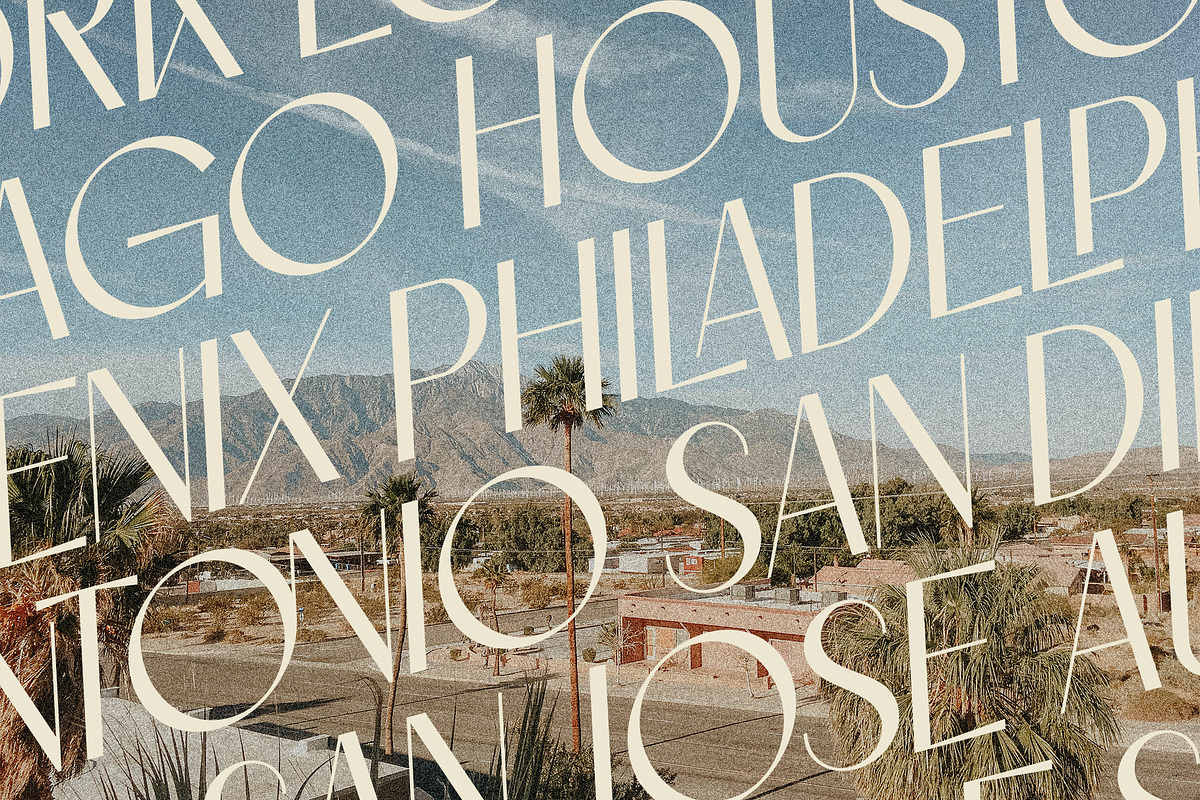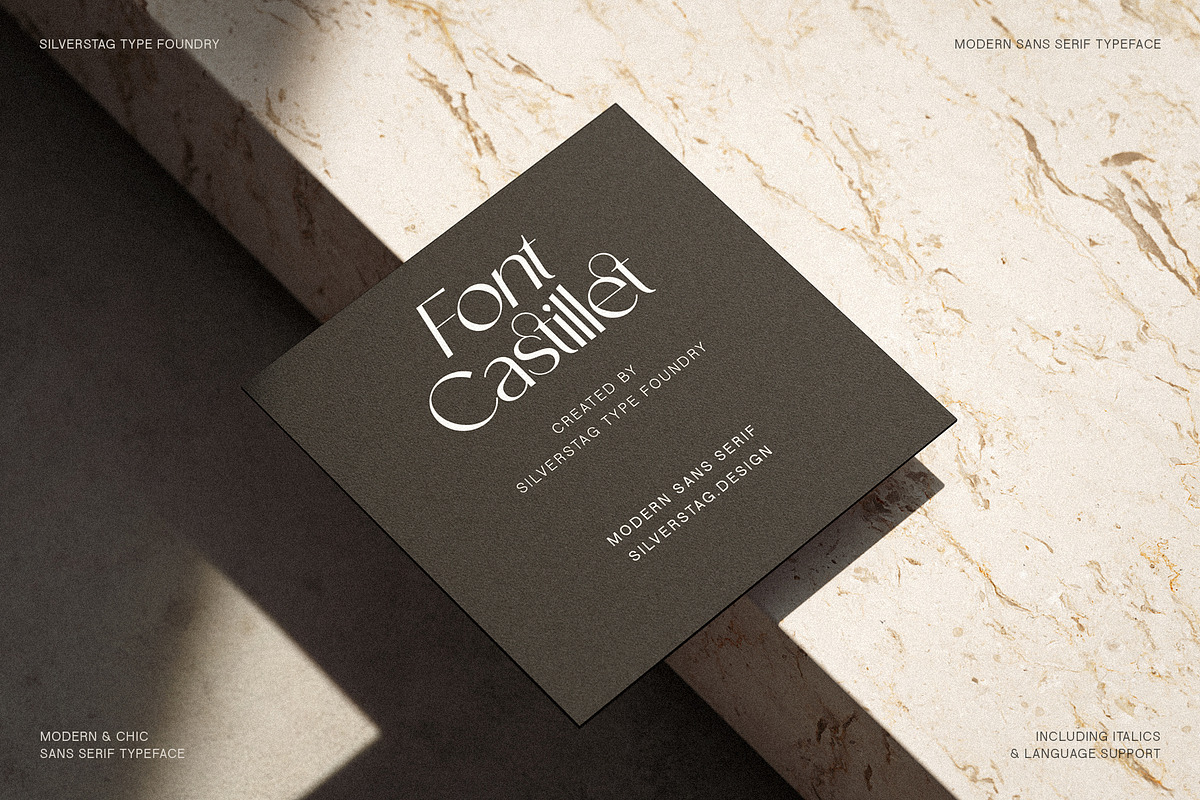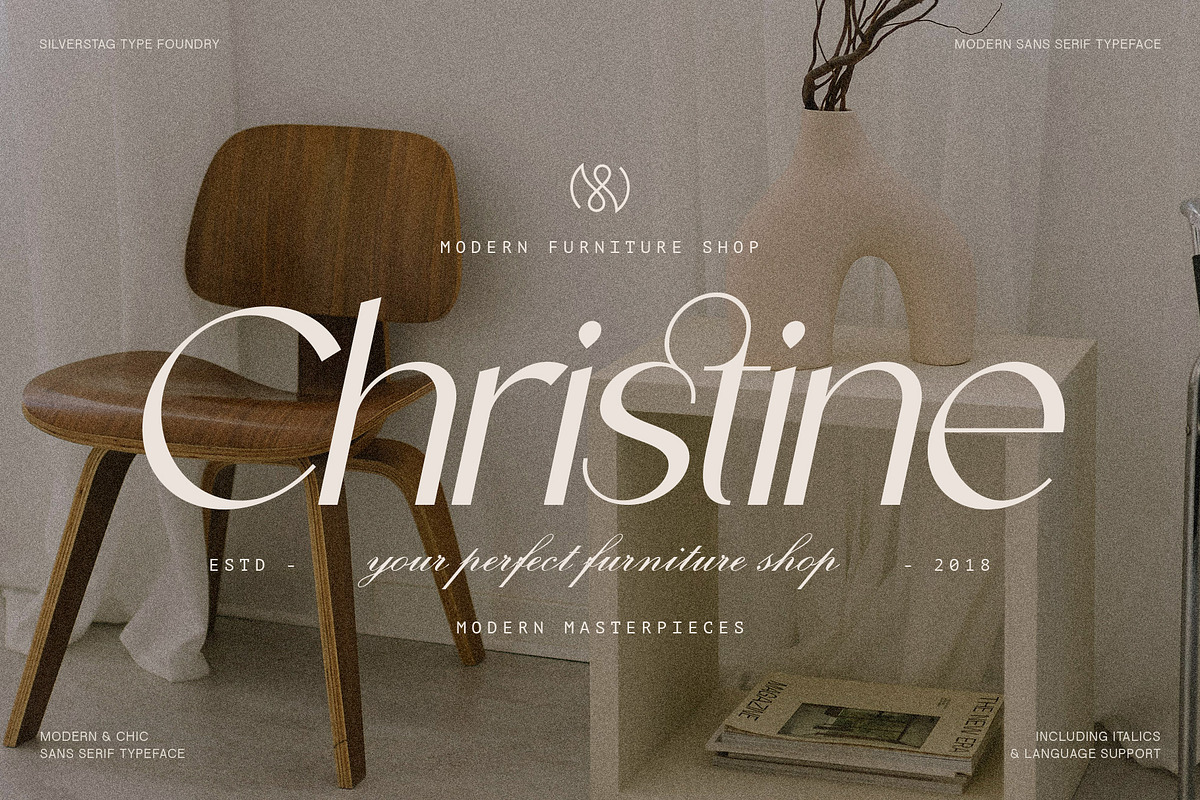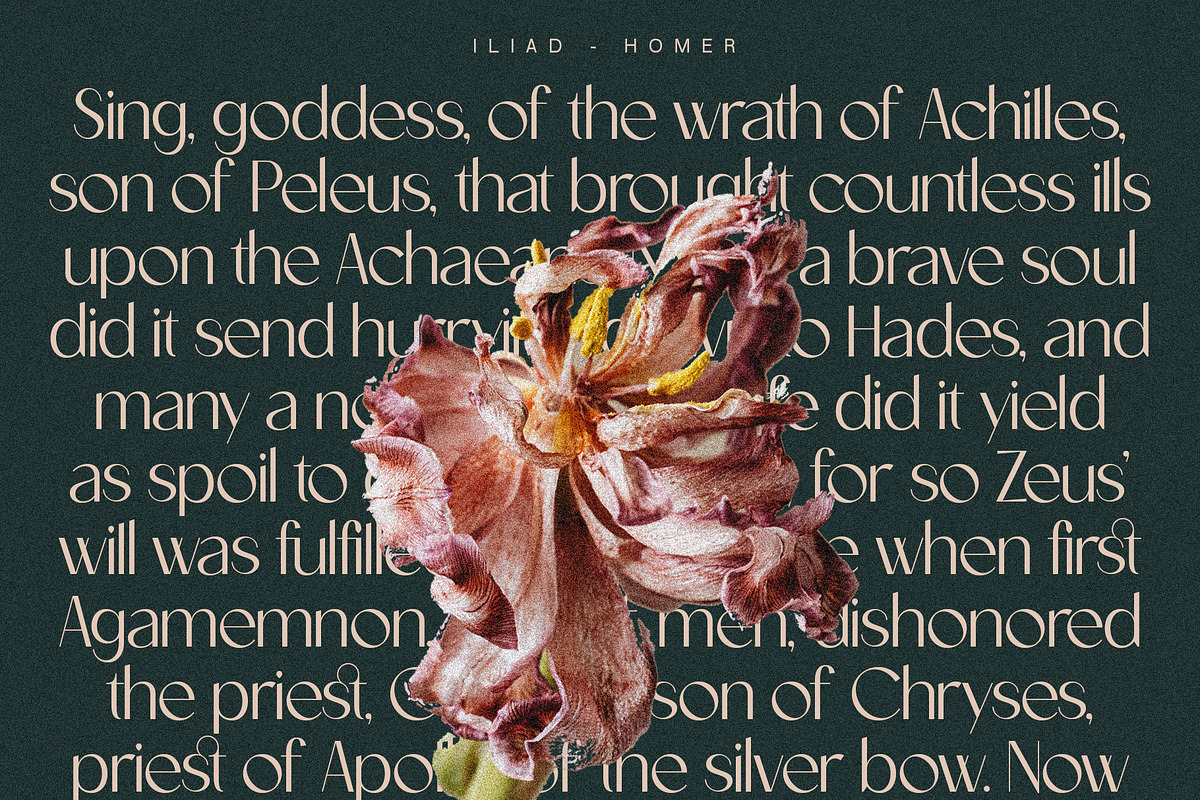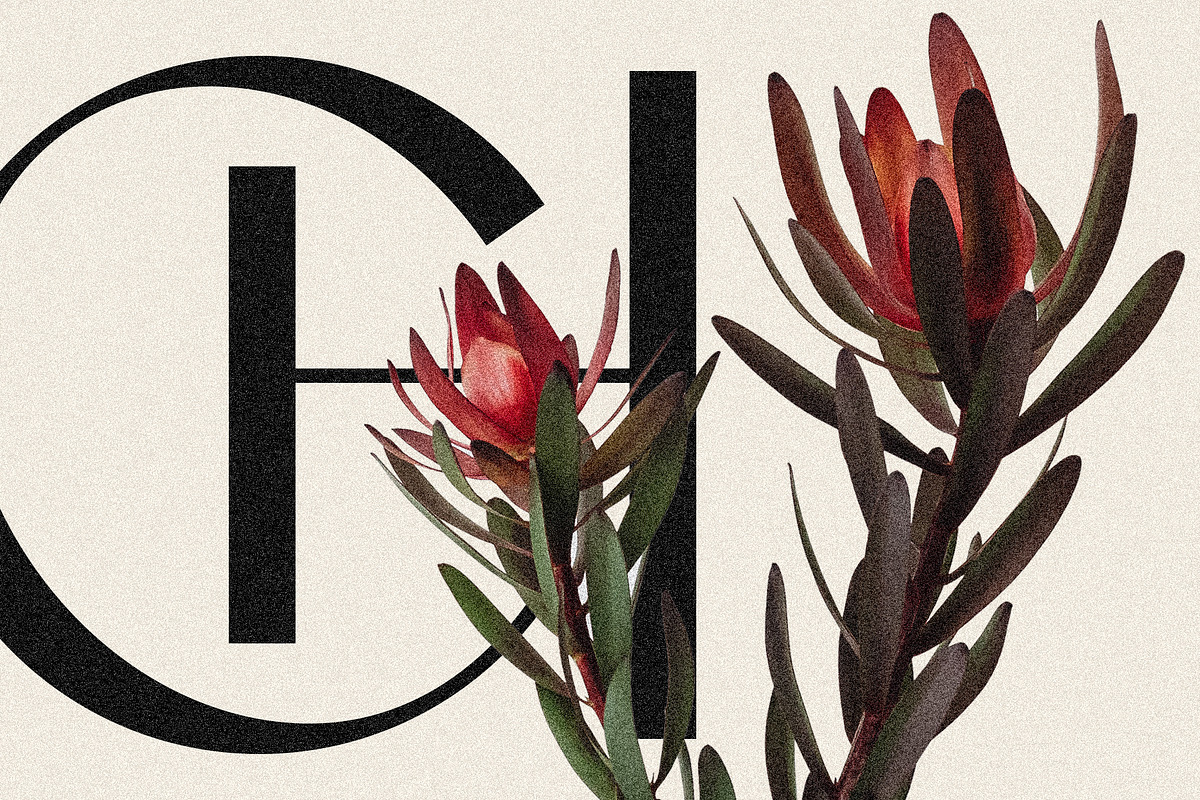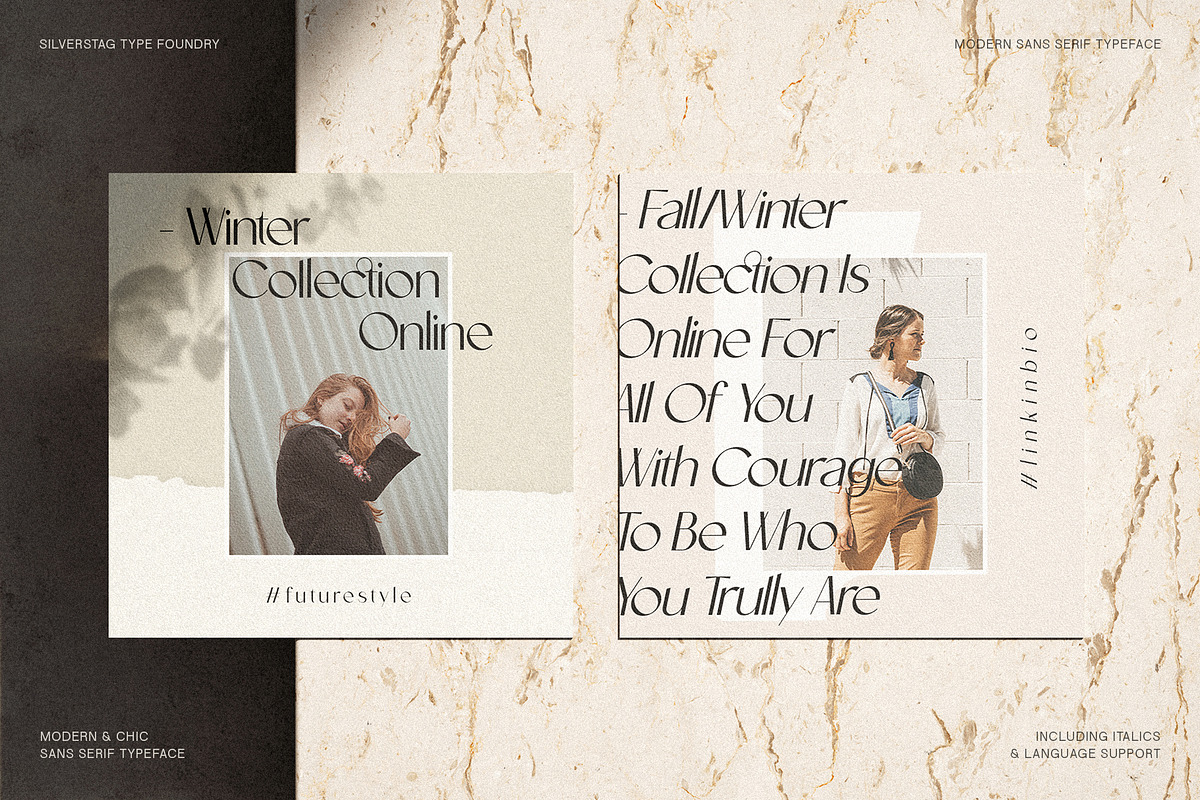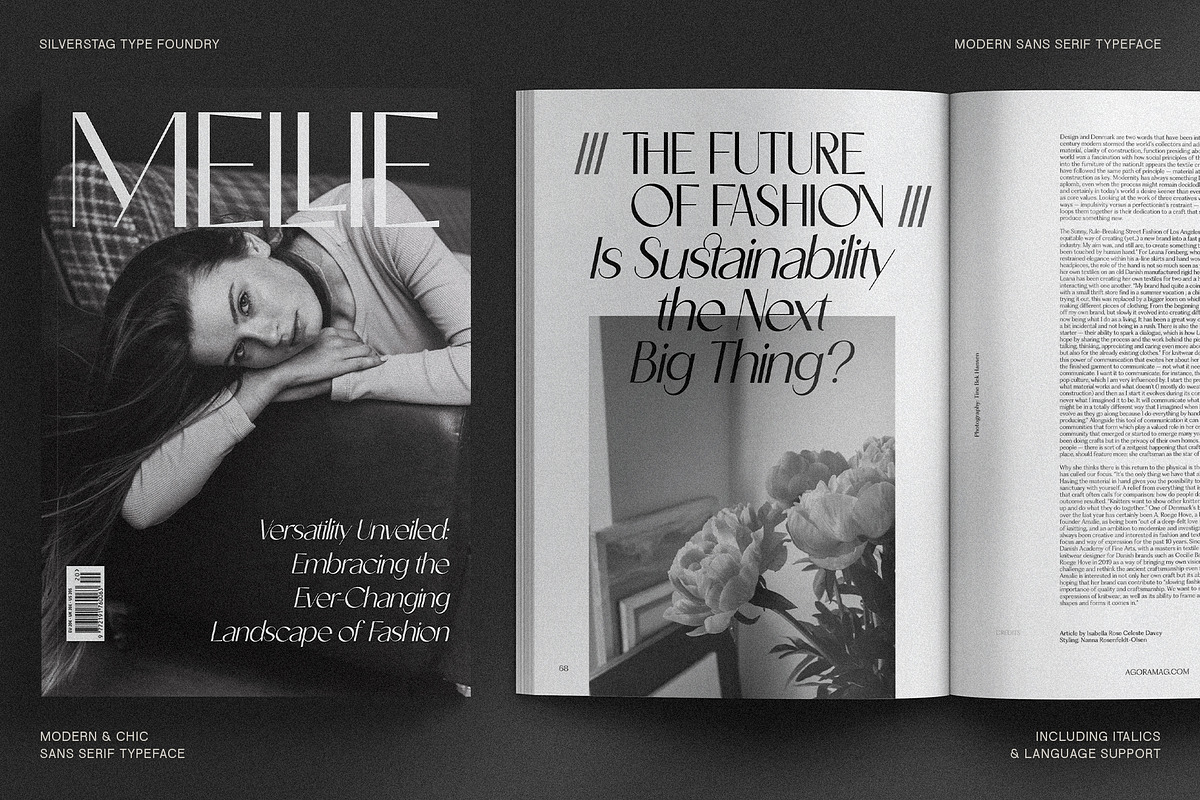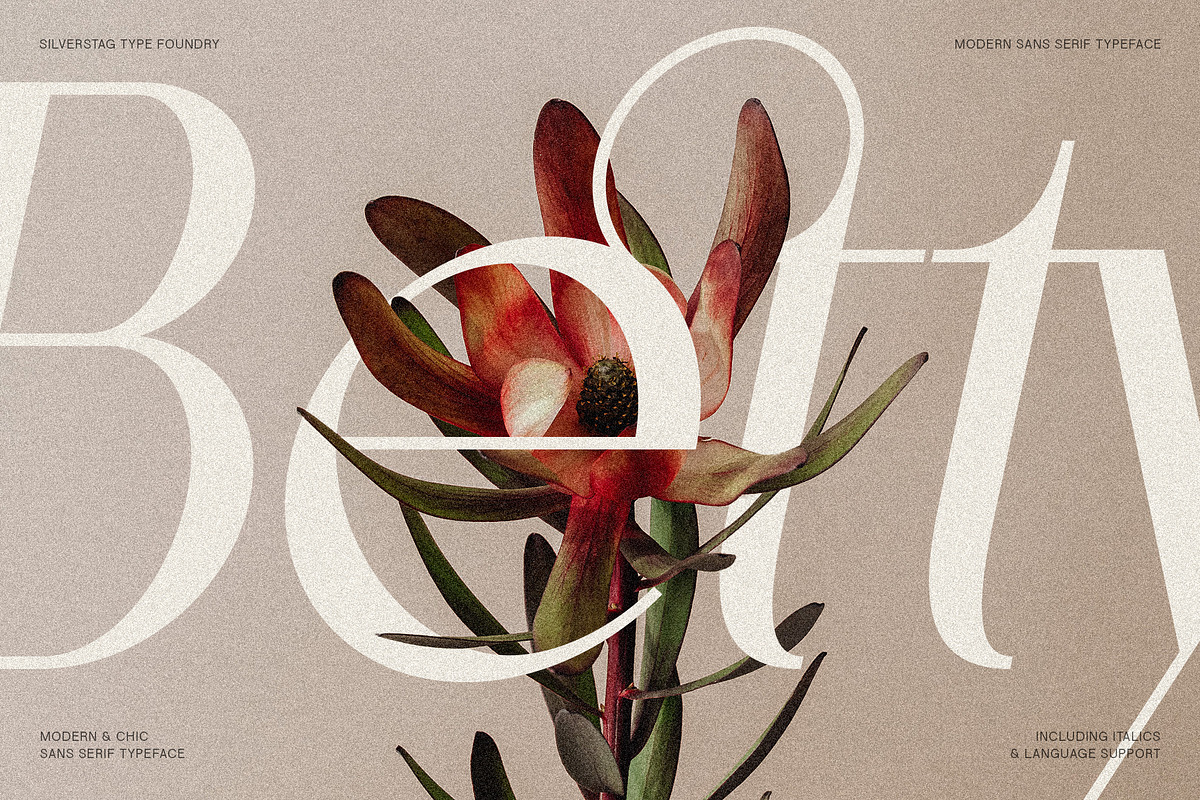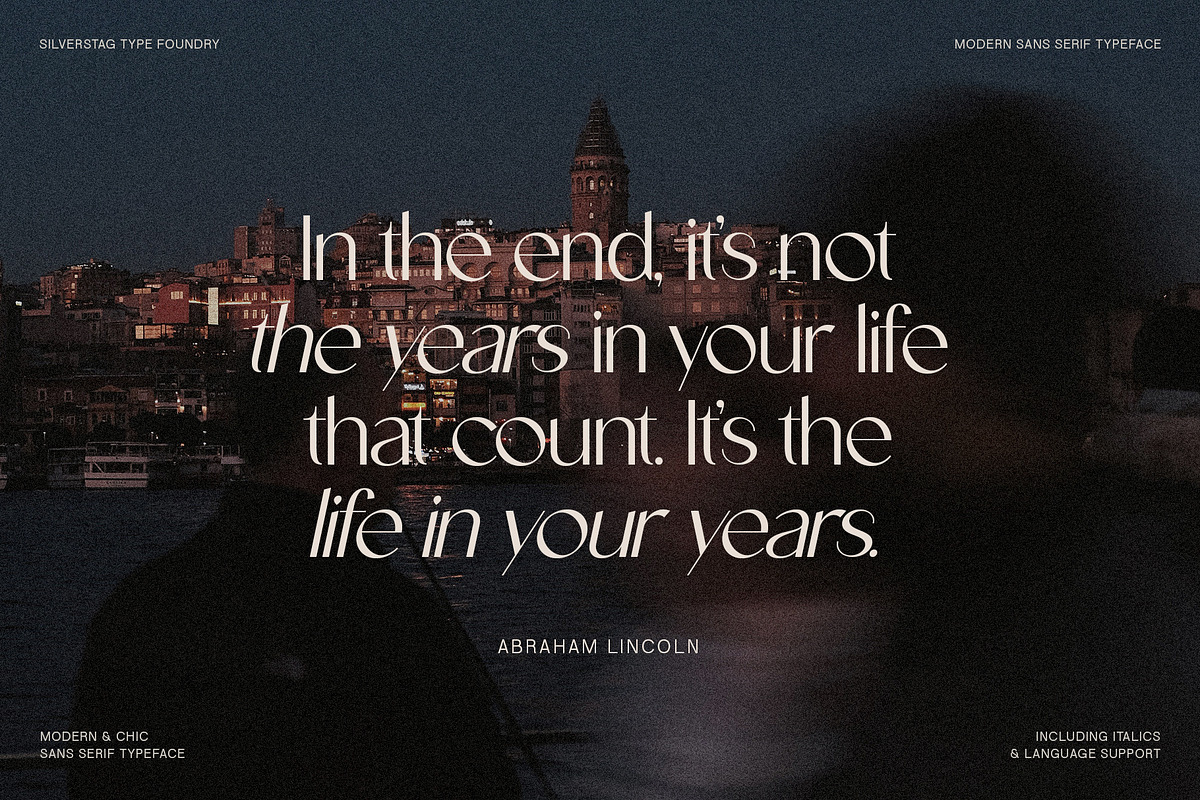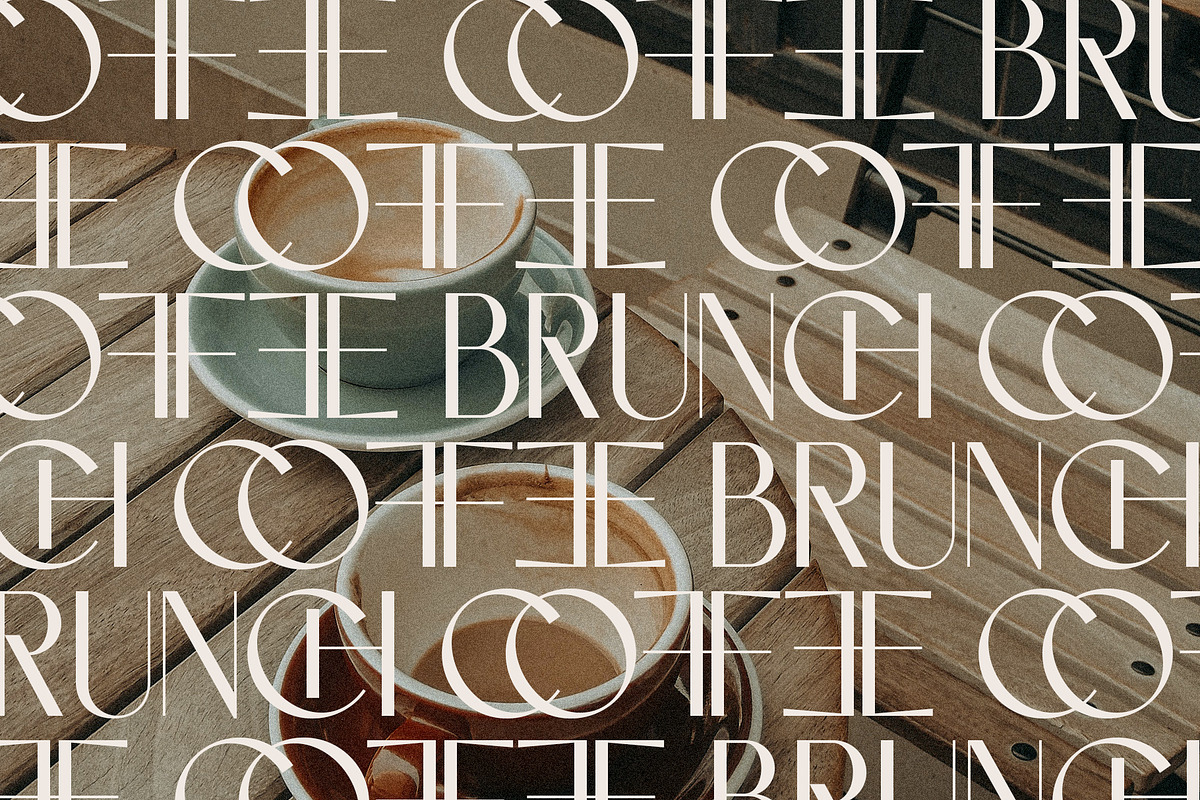
Castillet - Elegant Sans Serif Font
Introducing Castillet: My Elegant, High-Contrast Sans Serif Typeface
For years, a particular vision has brewed in the back of my mind: a sans serif typeface that effortlessly combines the timeless elegance of classic type design with the crisp energy of the modern world. Today, I'm thrilled to finally unveil Castillet, a new typeface that brings this vision to life.
Inspired by Form and Function
Castillet was born from a desire to create a sans serif that would feel equally at home in high-end fashion magazines as it would on sophisticated websites. Its name itself is a nod to a sense of place — Castillet is a historic landmark in Perpignan, France, a city that beautifully blends the old with the new. This duality inspired the font's design philosophy.
While drawing the letterforms, I focused on achieving a high level of contrast between the thick and thin strokes. This contrast lends Castillet an air of refinement while imbuing it with striking visual impact. It demands attention but remains graceful.
A Font that Plays Well with Others
Castillet wasn't designed to exist in a vacuum. I firmly believe that a great typeface should seamlessly complement other design elements. That's why I've meticulously handcrafted both a regular and an italic version. Use the regular weight for headlines or body text, and then add a touch of expressive flair with the italic — the subtle angle brings beautiful dynamism to any layout.
I envision Castillet working brilliantly alongside a classic serif for sophisticated contrast, or even with another well-chosen sans serif for a modern, layered look.
To take Castillet to the next level, I've packed it with over 50 ligatures. These special character combinations add a playful elegance when activated. They transform standard letter pairings into fluid, eye-catching elements — perfect for a touch of personality within logos, headlines, or editorial design.
Labor of Love
Every curve, every terminal, every ligature in Castillet has been the subject of meticulous consideration. I hope you'll find Castillet to be the perfect tool to elevate your own design projects. Whether you're in fashion, publishing, web design, or any other creative field, I believe its versatility and timeless appeal will prove invaluable.